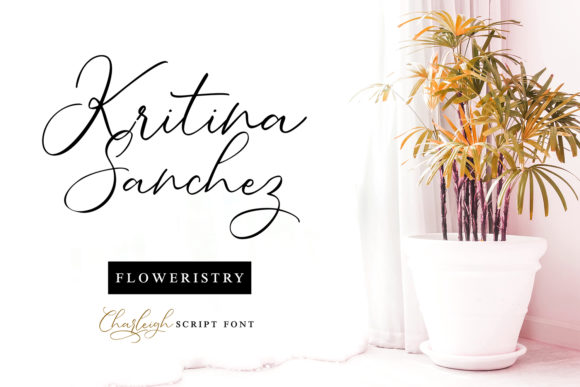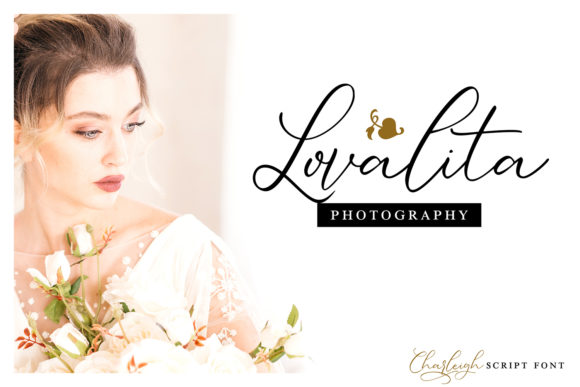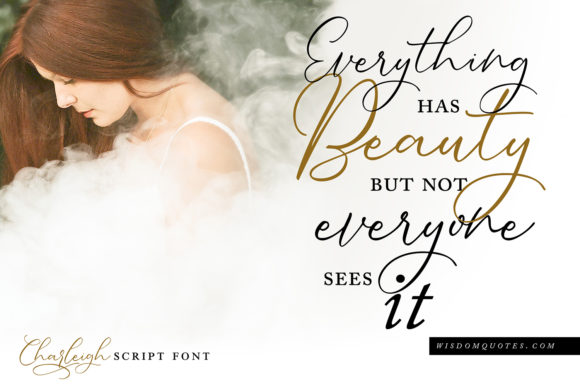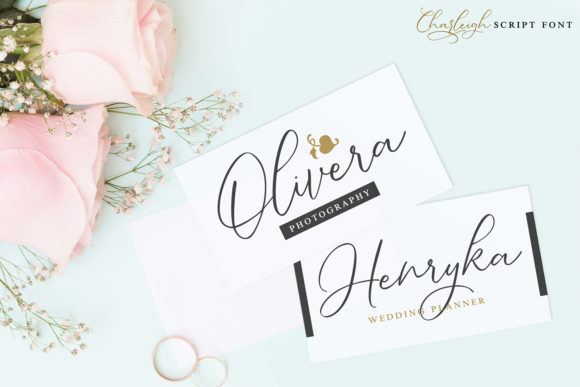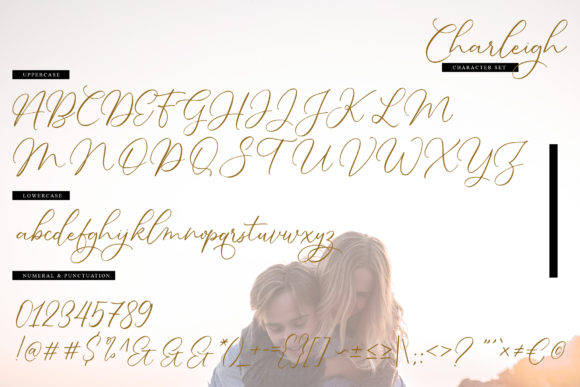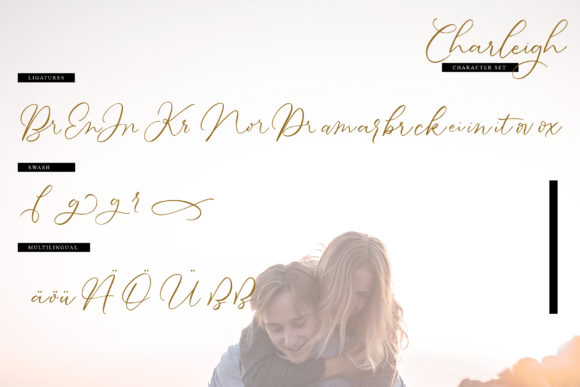
Introducing Charleigh Font: A Romantic and Sweet Calligraphy Typeface
Are you a designer or crafter looking for a font that exudes romance and sweetness? Look no further than Charleigh Font, a beautiful calligraphy typeface that is sure to capture your heart. With its casual yet elegant touch, Charleigh Font is perfect for a variety of creative projects, from logos and wedding invitations to headings, t-shirts, and more.
What Makes Charleigh Font So Special?
Charleigh Font is a unique and charming typeface that features characters that dance along the baseline, giving it a playful and whimsical feel. Its casual elegance makes it perfect for designers and crafters who want to add a touch of sophistication to their projects without sacrificing personality. Whether you’re creating a logo, wedding invitation, or social media graphic, Charleigh Font is sure to make your design stand out.
Uses for Charleigh Font
One of the best things about Charleigh Font is its versatility. This beautiful typeface can be used for a wide range of creative projects, including:
- Logos: Create a custom logo for your business or brand with Charleigh Font’s elegant and sophisticated style.
- Wedding Invitations: Make your wedding invitation truly special with Charleigh Font’s romantic and whimsical feel.
- Headings: Add a touch of elegance to your blog posts, articles, or social media graphics with Charleigh Font’s beautiful headings.
- T-Shirts: Create custom t-shirts with Charleigh Font’s fun and playful style.
- Letterhead: Add a touch of sophistication to your business letters and correspondence with Charleigh Font.
- Signage: Create eye-catching signs and banners with Charleigh Font’s bold and elegant style.
- Labels: Make your product labels stand out with Charleigh Font’s unique and charming style.
- News: Create engaging and informative news articles with Charleigh Font’s clear and readable style.
- Posters: Design eye-catching posters with Charleigh Font’s bold and elegant style.
- Badges: Create custom badges with Charleigh Font’s fun and playful style.
Why Designers and Crafters Love Charleigh Font
Charleigh Font has quickly become a favorite among designers and crafters, and for good reason. Here are just a few reasons why:
- Unique style: Charleigh Font’s unique and charming style sets it apart from other typefaces.
Tips for Using Charleigh Font
Here are a few tips for getting the most out of Charleigh Font:
- Use it sparingly: Charleigh Font is a statement typeface, so use it sparingly to add emphasis and personality to your design.
- Experiment with colors: Charleigh Font looks great in a variety of colors, so don’t be afraid to experiment and find the perfect hue for your design.
- Pair it with other fonts: Charleigh Font pairs well with a variety of other fonts, so try pairing it with a bold font for headings or a clean font for body text.
Charleigh Font is a beautiful and versatile typeface that is perfect for designers and crafters looking to add a touch of romance and sweetness to their projects. With its casual yet elegant touch, Charleigh Font is sure to become a favorite among designers and crafters. Whether you’re creating a logo, wedding invitation, or social media graphic, Charleigh Font is the perfect choice.